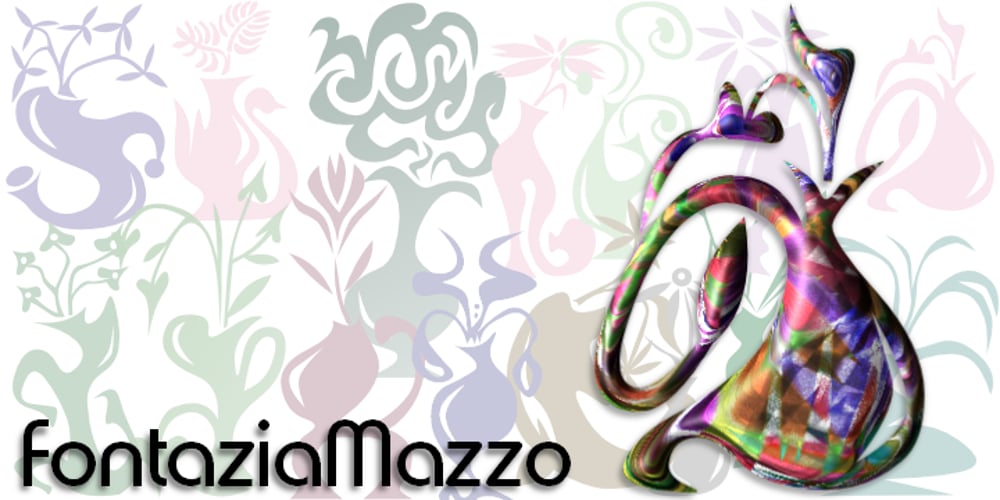
Fontazia Mazzo
Fontazia Mazzo font
Fontazia Mazzo Font Family was designed by published by Deniart Systems. Fontazia Mazzo contains 1 styles and family package options. Fontazia Mazzo features a unique assortment of floral bouquets in abstract vases. A modern addition to any interior design layout or for any project where flowers say just the right thing! Like other type, these dingbats can easily be integrated into any text document or graphic program.